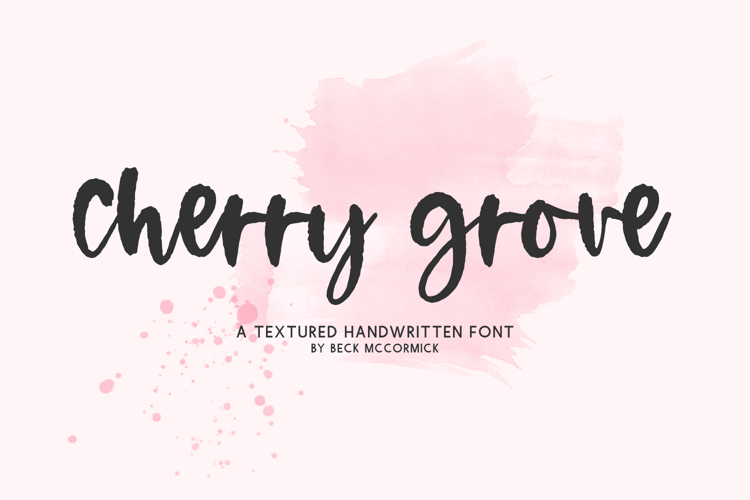
Introducing Cherry Grove, a lightly textured bouncy calligraphy font.
Cherry Grove is best for:
- farmhouse decor and crafts
- digital planners & apps like Goodnotes
- website design + website accents, blog design
- feminine graphic tee shirt design & other apparel